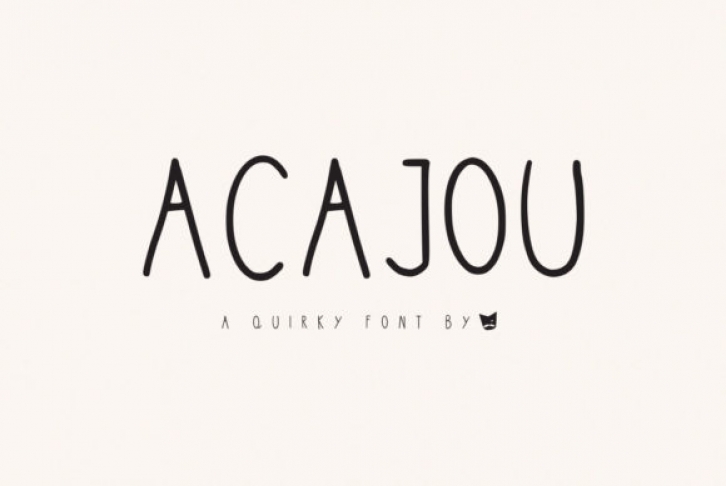
Acajou is a simple, playful and down to earth handwritten font. No matter the topic, this font will be an incredibly asset to your fonts’ library, as it has the potential to elevate any creation.